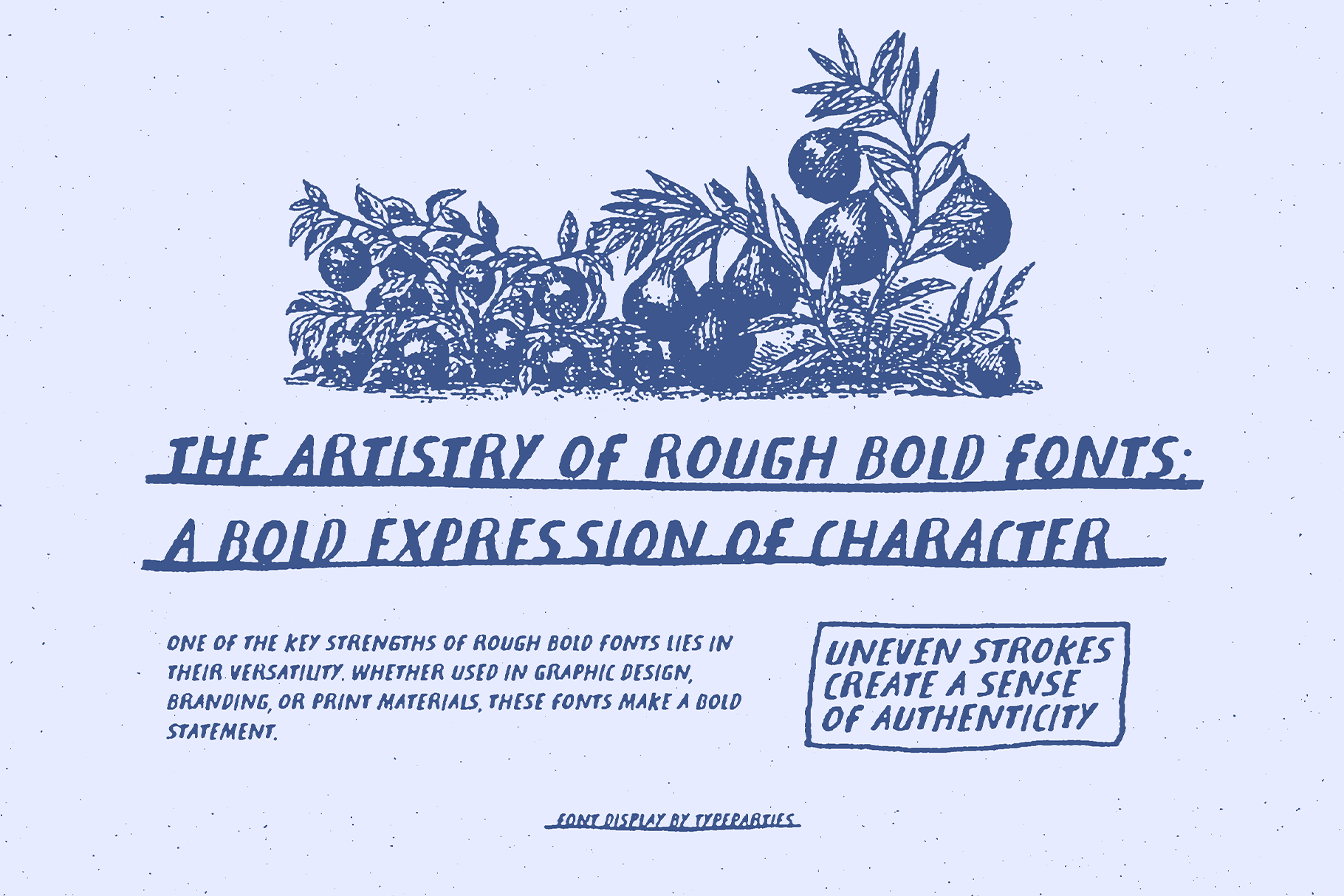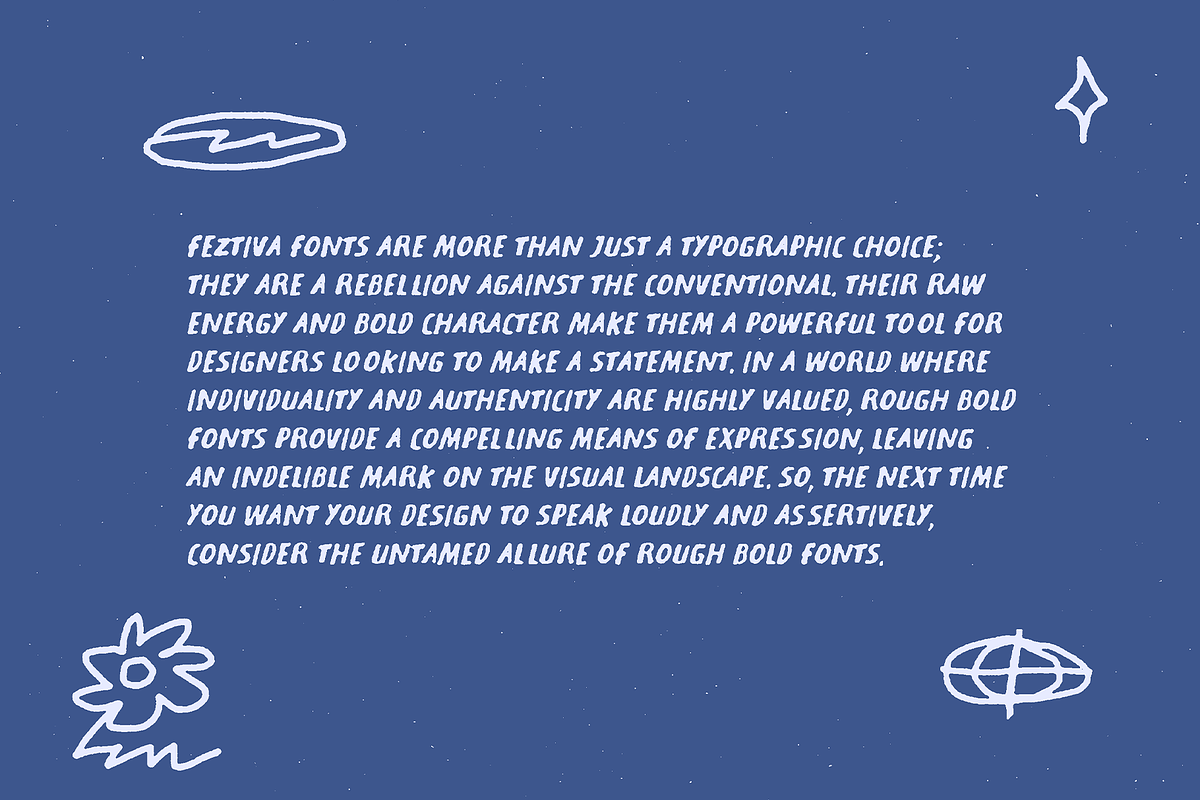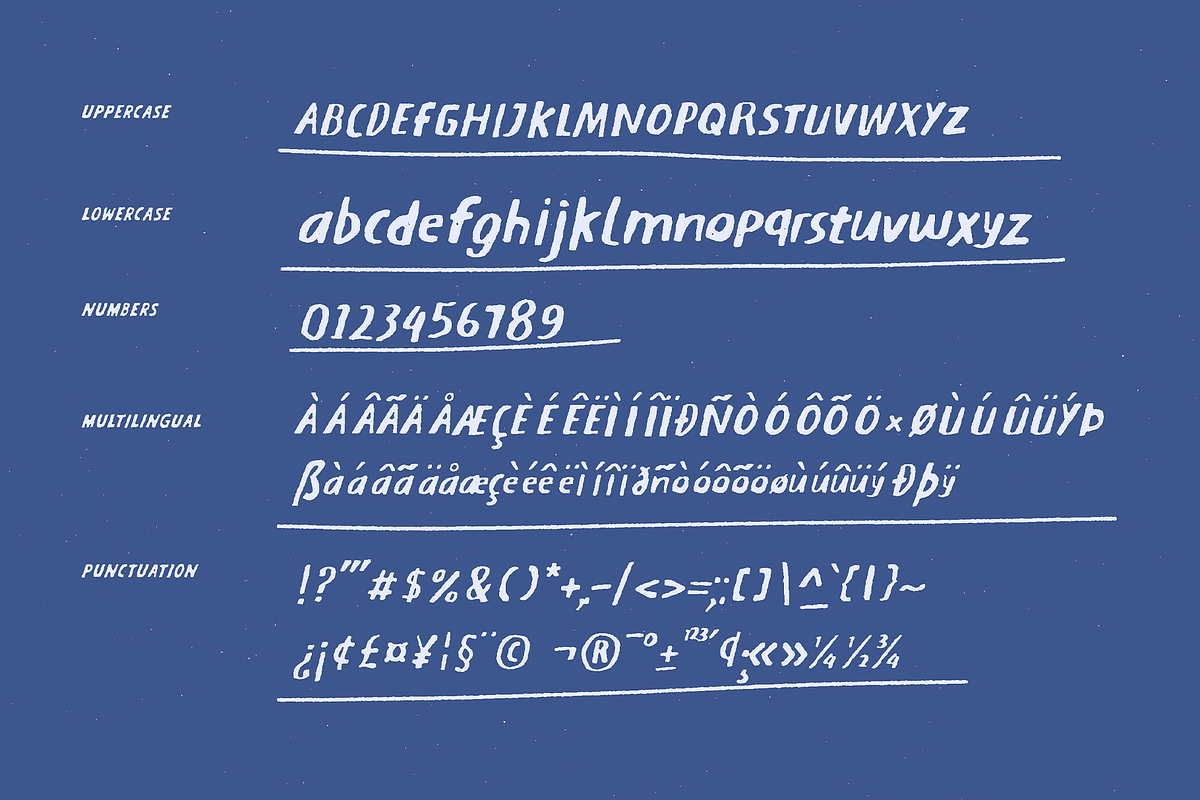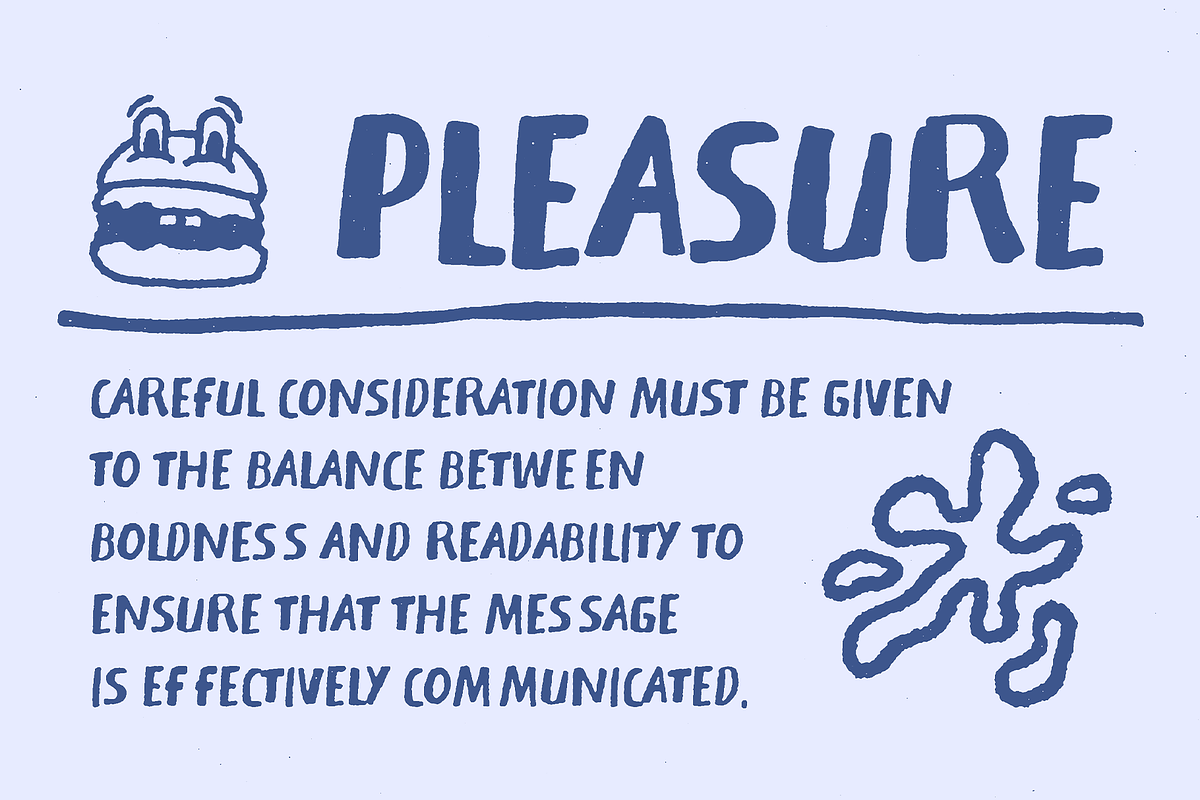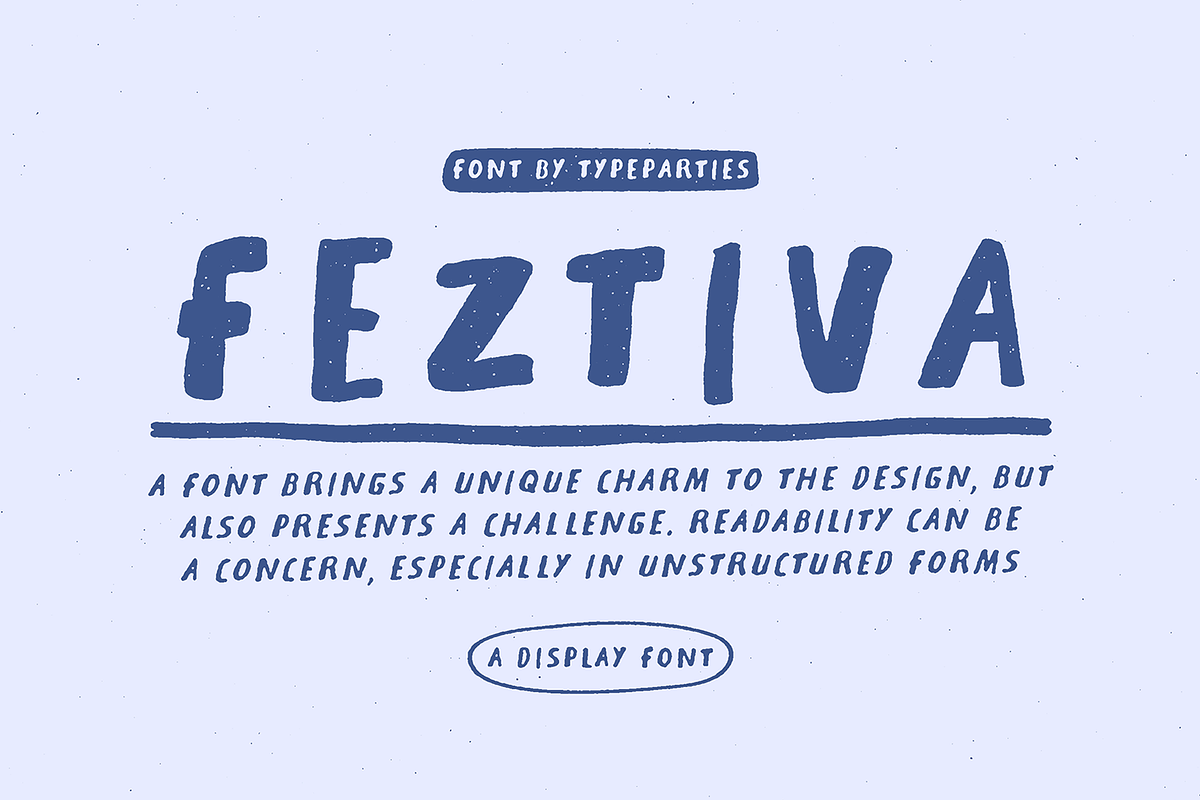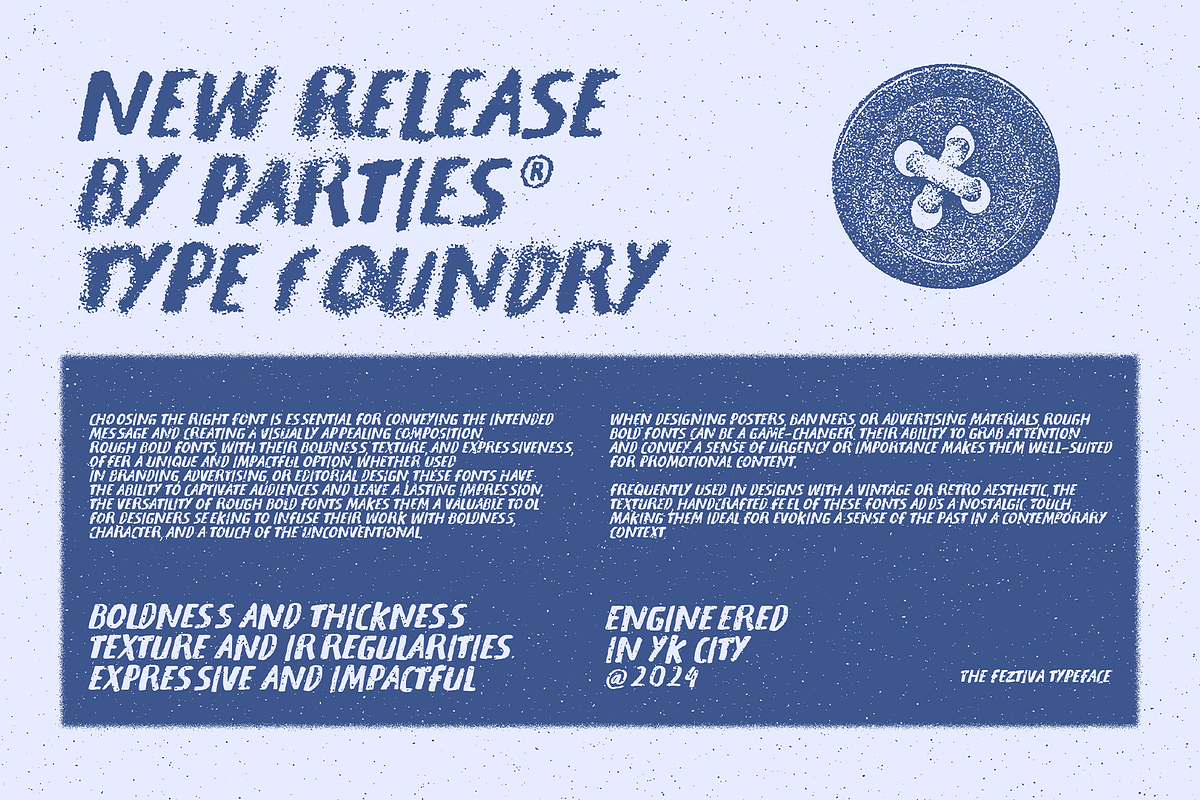
Feztiva - unique handwritten Font
Feztiva font brings a unique charm to the design, but also presents a challenge. readability can be a concern, especially in unstructured forms